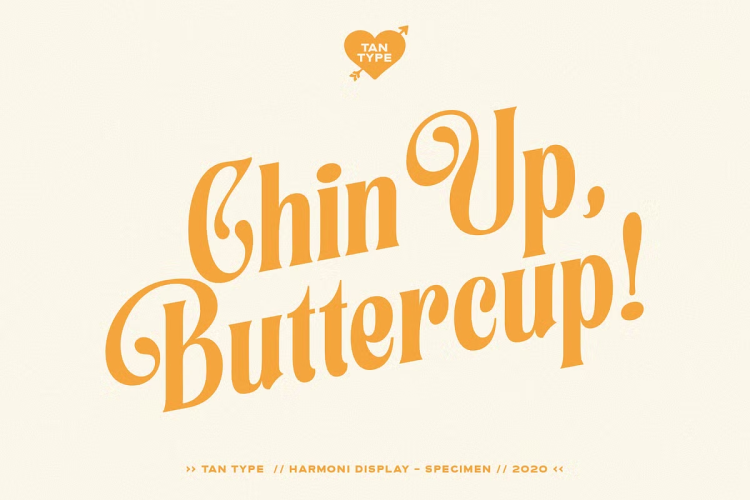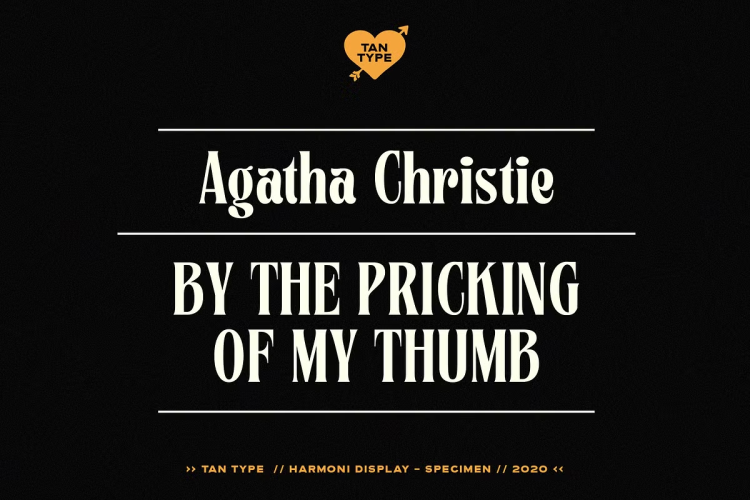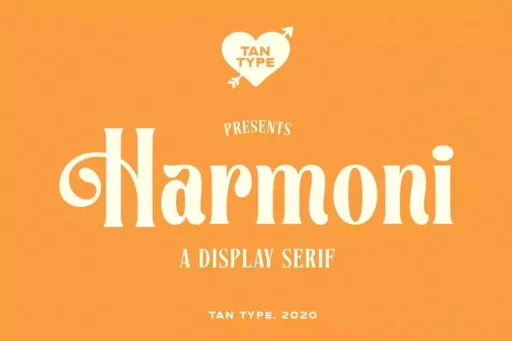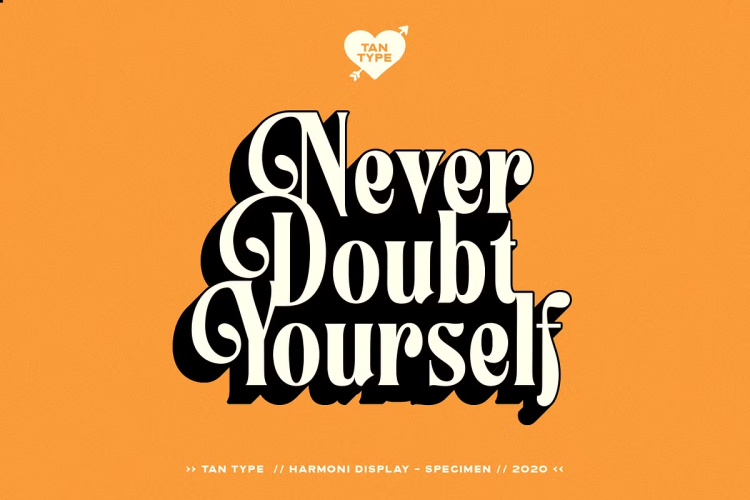
TAN Harmoni Font
TAN Harmoni is a fancy display serif font by TanType that is as delightful as it is professional and incredibly versatile too. It has flexibility with different designs for all capital letters and some lower-case letters in order to provide interesting and dynamic text. When the stylistic toggle is turned off, the font takes a more professional look and is suitable for different designs. No matter if you want to add some fairy tale feeling or want to have a professional design, TAN Harmoni fits perfectly.
TAN Harmoni Font is a Display Fonts font that brings a professional and versatile look to your projects. TAN Harmoni is a fancy display serif font by TanType that is as delightful as it is professional and incredibly versatile too.